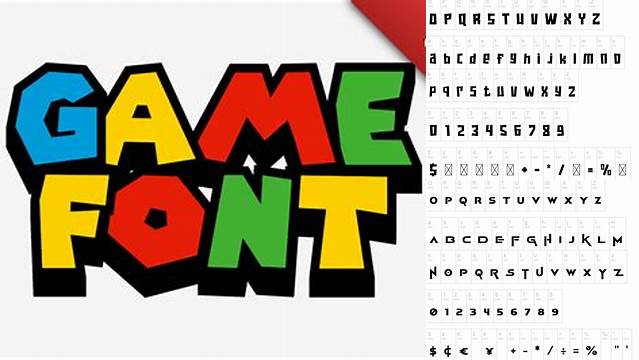
Video Game Fonts: DaFont & Typography Guide
Hey guys! Ever wondered what makes your favorite video games look so darn cool? Well, a huge part of that is the fonts! They set the mood, give the game its personality, and make everything easier to read. And if you're into finding some awesome fonts for your own projects, whether it's a game, a graphic design thing, or just for fun, then you've probably stumbled upon DaFont. This article is your ultimate guide to the world of video game fonts and how to find the perfect ones on DaFont, the font paradise. Let's dive in!
Exploring the World of Video Game Fonts
Okay, so first things first: why are fonts in video games so important? Think about it – you spend hours staring at those words, right? The font needs to be readable, sure, but it also needs to fit the game. A cute, bubbly font wouldn't really work for a gritty, dark fantasy game, would it? The right font helps to establish the tone, the setting, and the overall feel of the game. It's all about creating an immersive experience, and the font is a crucial piece of that puzzle. Fonts are not just about legibility; they're about art, design, and storytelling. The type of font used can instantly communicate a lot about the game's genre, target audience, and even the personality of the characters. From the futuristic sleekness of sci-fi games to the medieval charm of fantasy titles, fonts act as silent narrators, complementing the visuals and enhancing the player's experience. It is like having a secret language that speaks directly to players, creating a connection that transcends mere words. So when you're looking at video game fonts, you're really looking at a whole world of design. You're considering how these digital glyphs will interact with the game's environment, characters, and overall narrative. It’s more than just picking a font; it’s about crafting an experience. Imagine the impact of the Minecraft font, simple yet iconic, it instantly tells you what game it is. Consider the bold, dynamic fonts often seen in action games – they scream excitement and energy! The fonts are carefully selected to complement the visual style, creating a harmonious blend of text and image. In conclusion, the perfect font isn't just something that looks good; it's something that feels good, seamlessly integrating into the game to enrich the player's journey. The importance of fonts in video games can't be stressed enough, and mastering their use is essential for any game developer or designer.
Popular Font Categories for Video Games
- Retro Fonts: Ah, the classics! These fonts often mimic the pixelated or blocky look of older games, perfect for emulating that nostalgic feel. Think of the fonts used in Pac-Man or Super Mario Bros.. They're instantly recognizable and bring a wave of nostalgia. These fonts are great for games that want to capture the essence of the golden age of gaming. They offer a unique charm that transports players back to a simpler time, filled with fun and adventure. Retro fonts are not just about visual appeal; they're about evoking memories and emotions that resonate with players.
- Sci-Fi Fonts: For all things futuristic! These fonts often have a sleek, high-tech look, ideal for games set in space or with advanced technology. Think of those clean, geometric fonts that you see in games like Mass Effect or Cyberpunk 2077. These fonts help to build the atmosphere, immersing players in a world of advanced technology and interstellar adventures. They convey a sense of sophistication and innovation, making players feel like they are part of a cutting-edge experience. It gives the game a sense of mystery, creating an atmosphere that enhances the overall gameplay.
- Fantasy Fonts: These fonts are all about magic and medieval settings! They often have a more ornate or calligraphic style, perfect for RPGs or fantasy adventures. Think of the fonts in games like The Elder Scrolls or The Witcher. They instantly evoke a sense of wonder and fantasy. These fonts make the player feel as if they're stepping into a magical world, setting the stage for epic quests and legendary battles. It's like having a visual spell that draws players into a land filled with enchantment.
- Modern Fonts: These fonts have a more clean and contemporary look, often used in modern games to give a minimalist feel. These fonts provide excellent readability while maintaining a stylish, modern aesthetic. These fonts can be applied in any game, as long as it matches the game's style.
So, how do you actually find those video game fonts on DaFont? Here's a simple guide:
- Go to DaFont: Head over to DaFont.
- Use the Search Bar: This is your best friend! Type in keywords like "game", "pixel", "retro", "sci-fi", "fantasy", or even the name of a specific game if you're looking to copy a style.
- Browse Categories: You can also browse the categories on the site. Click through different styles to see what matches your game's aesthetic. It might be a good idea to explore the "Pixel", "Retro", or "Techno" categories for video game-style fonts.
- Preview the Fonts: DaFont lets you preview fonts. Type in your game's name or a key phrase to see how the font looks with your text. This is super important for deciding if it's the right fit.
Tips for Finding the Perfect Font
Here are some super useful tips to help you on your quest for the perfect video game font. First, think about the genre and the overall feel of your game. Is it a fast-paced action game? A slow-burn RPG? A cute puzzle game? The font you pick needs to match that vibe. Consider the readability of the font. You don't want a font that's so stylized that players can't read the text! Make sure it's clear and easy to understand, especially for important game information. Also, consider the scale and size of the font. A font that looks great on a title screen might look terrible in small text on a menu. You need to test different sizes and see how it looks at various scales. Experiment with different combinations! Don't be afraid to try different fonts for different parts of your game. You could have a different font for the title, the menu, and in-game text. This can add a lot of visual interest. Lastly, always test your font in the game. See how it looks against the background, and make sure it's not clashing with the other visual elements. Testing is vital to ensure the perfect font for your project. Finding the ideal font is both a science and an art. It's about understanding the rules of typography and letting your creativity guide you. By following these simple steps, you'll be well on your way to finding the perfect video game font that will set your game apart. Make it a fun process and enjoy the journey!
Conclusion: Crafting Your Visual Identity with Fonts
So, there you have it, guys! Finding the perfect video game font is a fun and important part of game design. It’s about more than just picking a pretty typeface; it’s about crafting a visual identity that connects with your players. With DaFont and the other resources mentioned, you've got everything you need to find fonts that capture the essence of your game. Remember to consider the game's genre, readability, and overall aesthetic. Have fun experimenting, and don't be afraid to try different fonts until you find the perfect fit. The right font can make all the difference in creating a memorable and engaging gaming experience. Now get out there and start font-hunting! Good luck, and have fun making your games look amazing!